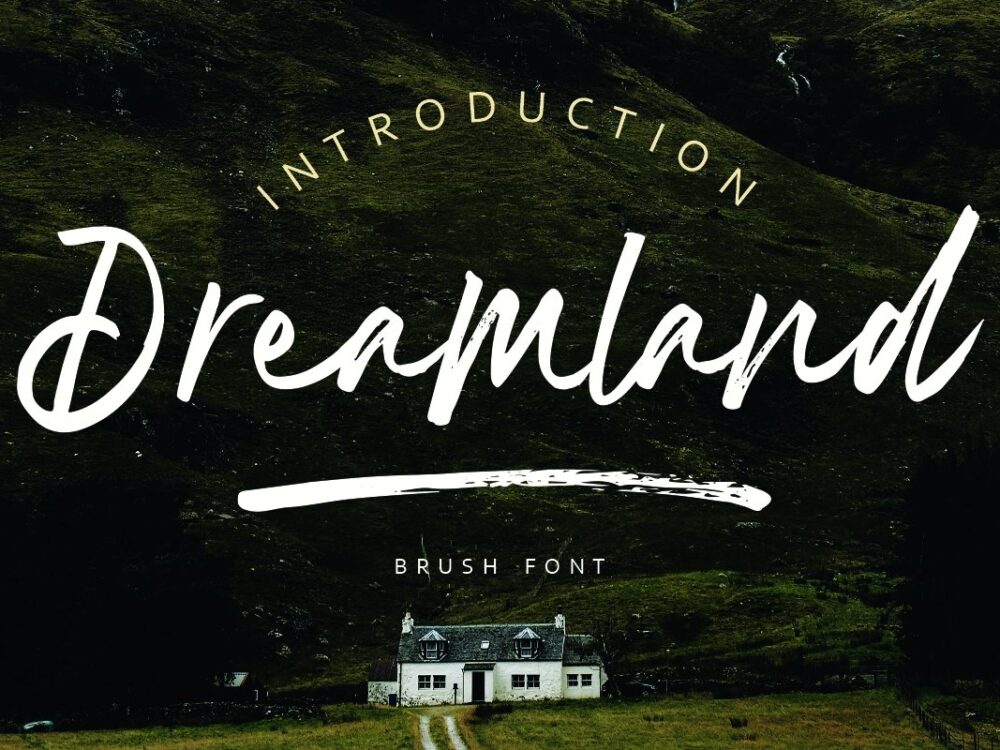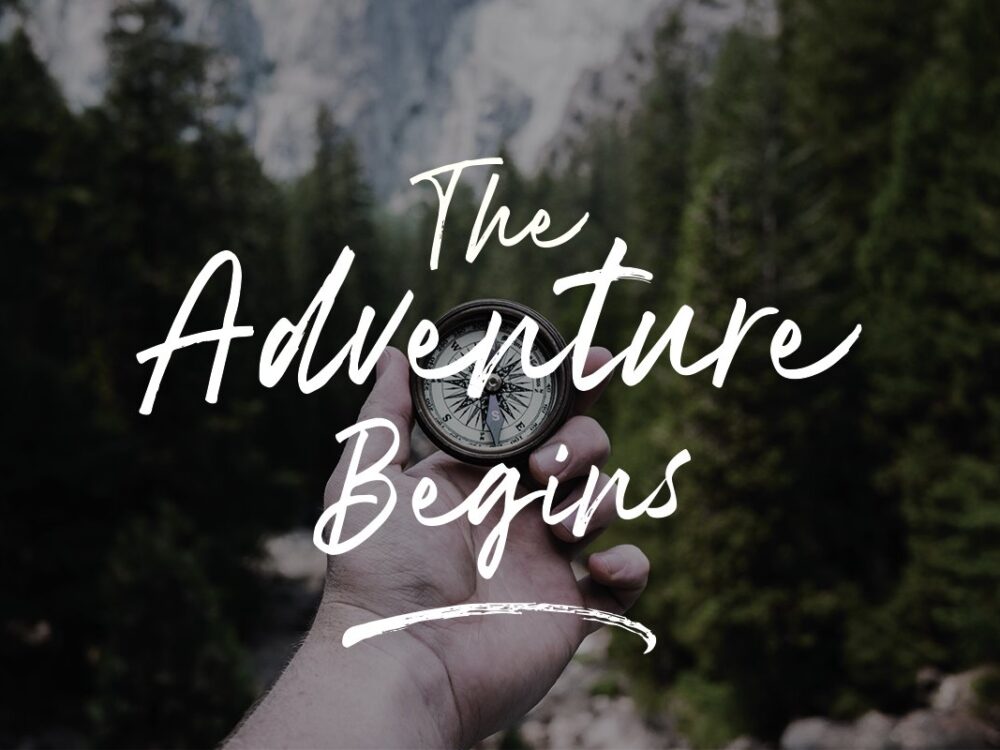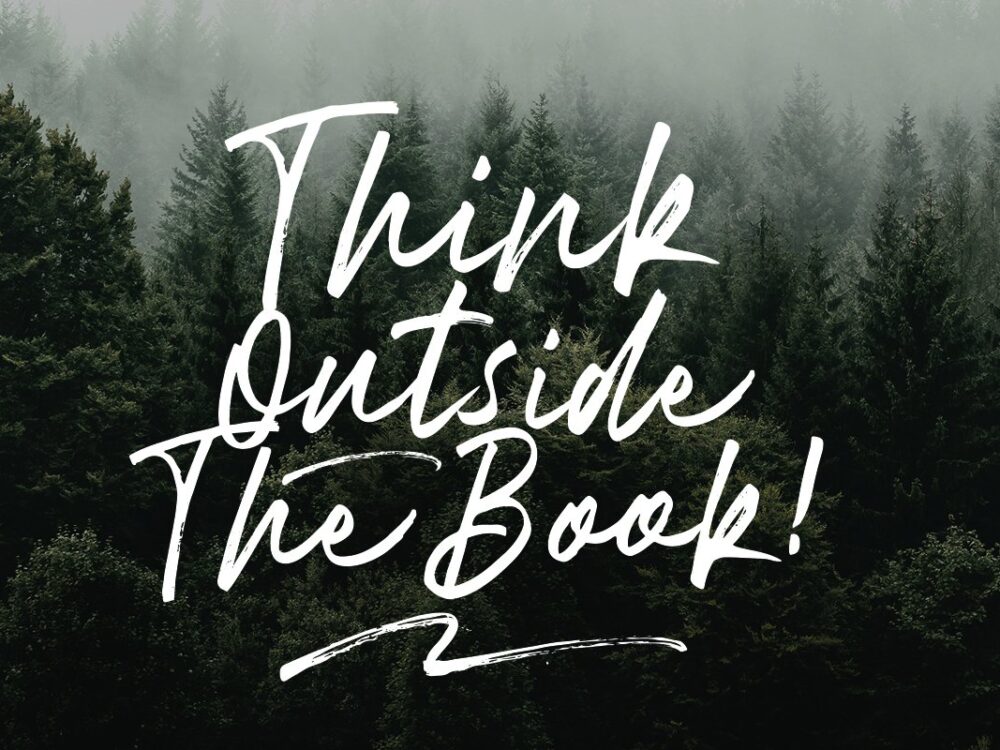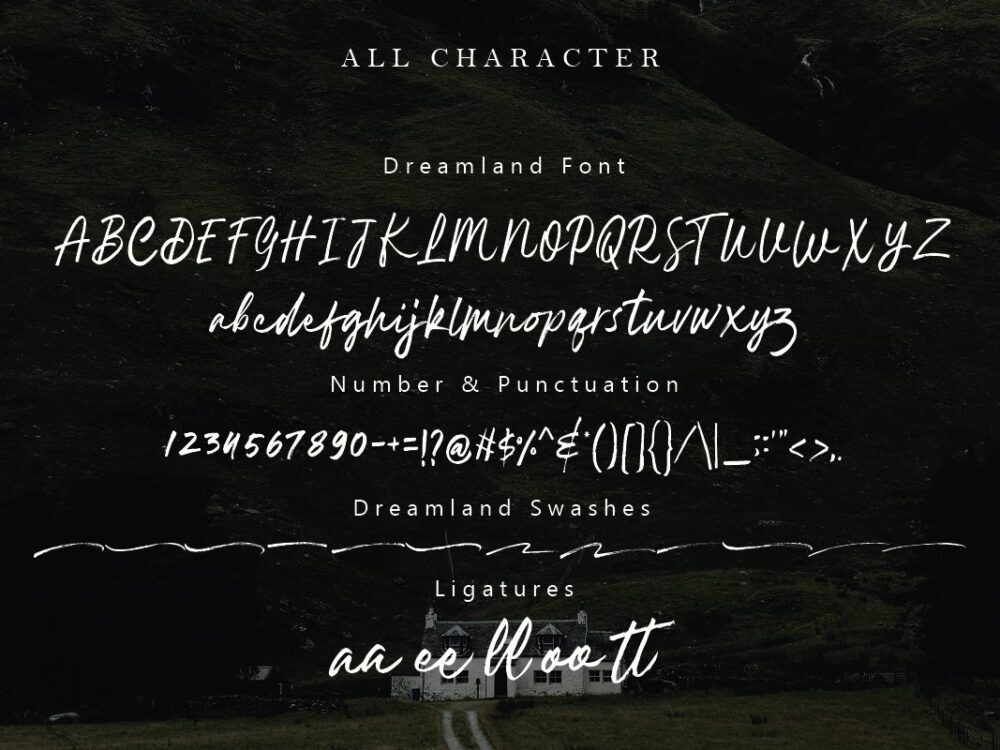
Dreamland Brush Font Free Demo
Dreamland Brush Font Free Demo is a beautiful handwritten font that consists of uppercase letters, punctuation marks, and numbers. Perfect for creating posts, invitations, postcards, branding, clothing prints, and much more. For commercial projects check out the full version.